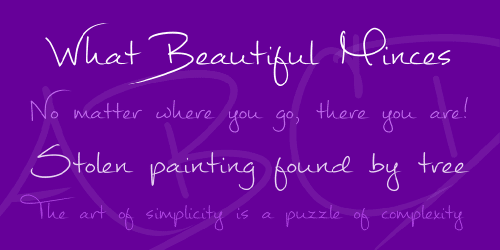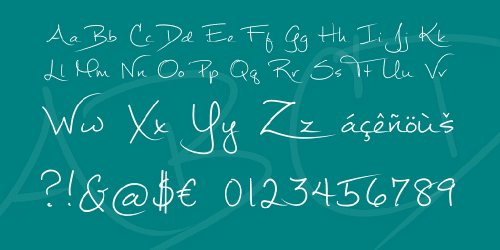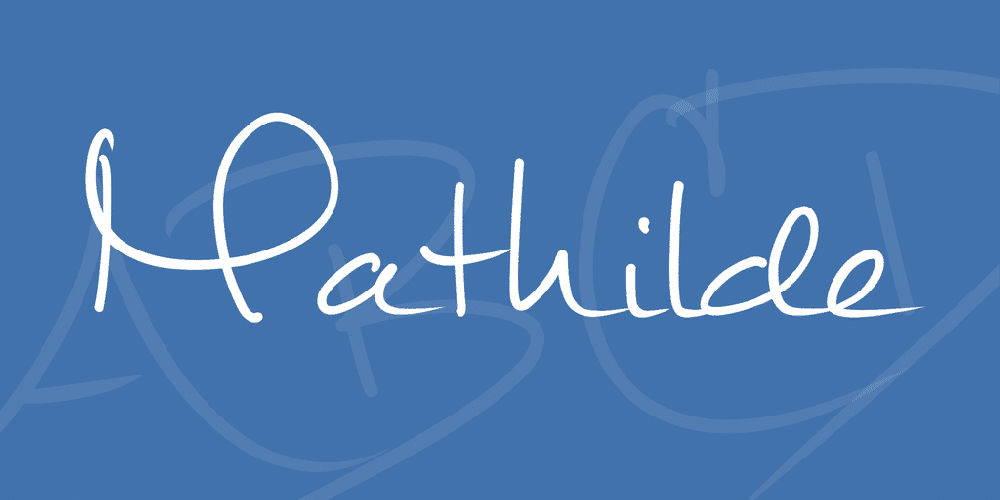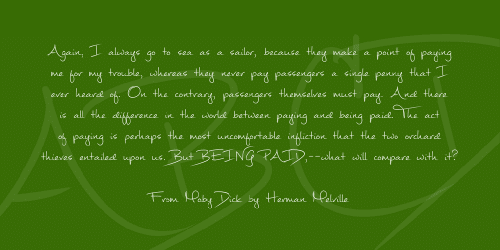
“Mathilde” is a handwritten, cursive/print hybrid typeface that includes accented letterforms, math symbols, as well as opentype contextual alternatives for common double-letter combinations.
Update 10/01/2012: Improved font’s compatibility with word processors. Added swash characters for letter-forms with very long tails.